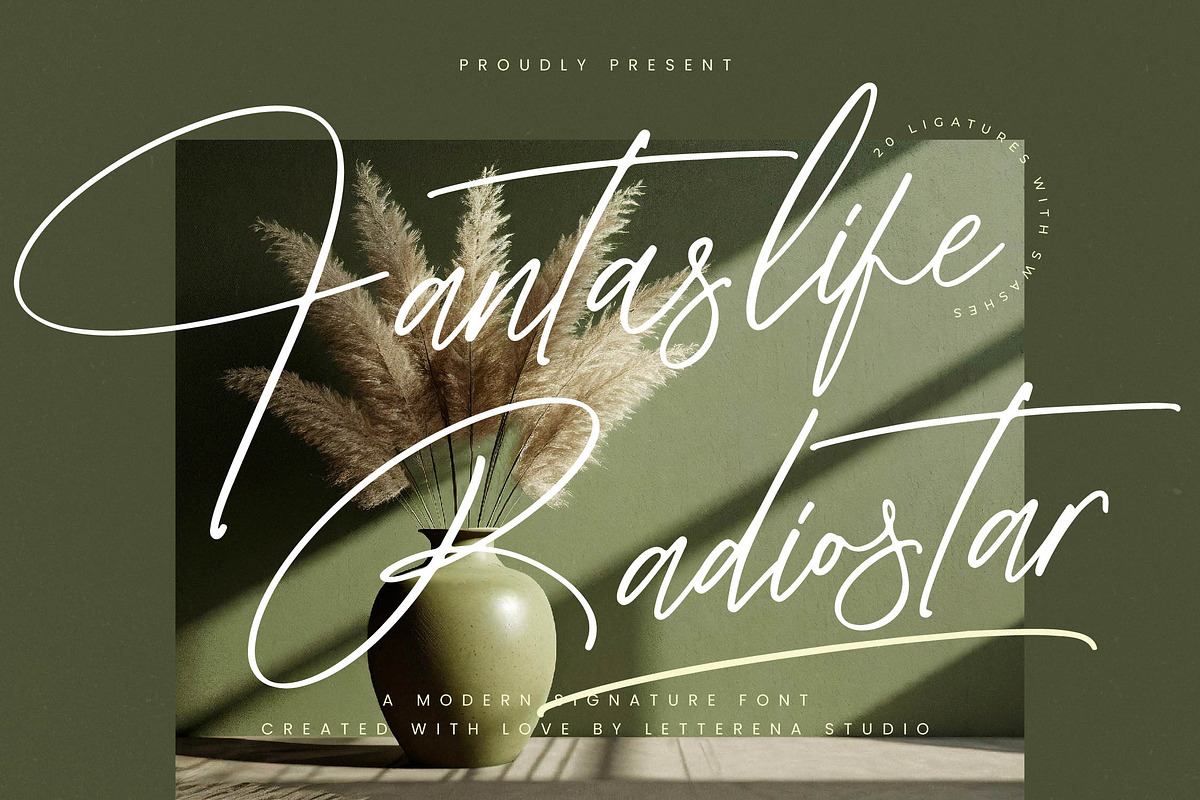
Fantaslife Radiostar Signature Font Free Download is an elegant and stylish handwritten script typeface, designed to give your typography a unique, personal touch. With its smooth curves, flowing strokes, and signature-style charm, this font is perfect for logos, branding, wedding invitations, social media graphics, and creative content that requires a sophisticated yet approachable look.
Its natural, authentic feel adds warmth and elegance to any project, making it ideal for high-end branding or personal projects that need a refined handwritten vibe. Whether you’re designing for a luxury product, a boutique, or a personal portfolio, Radiostar brings timeless beauty to your design.